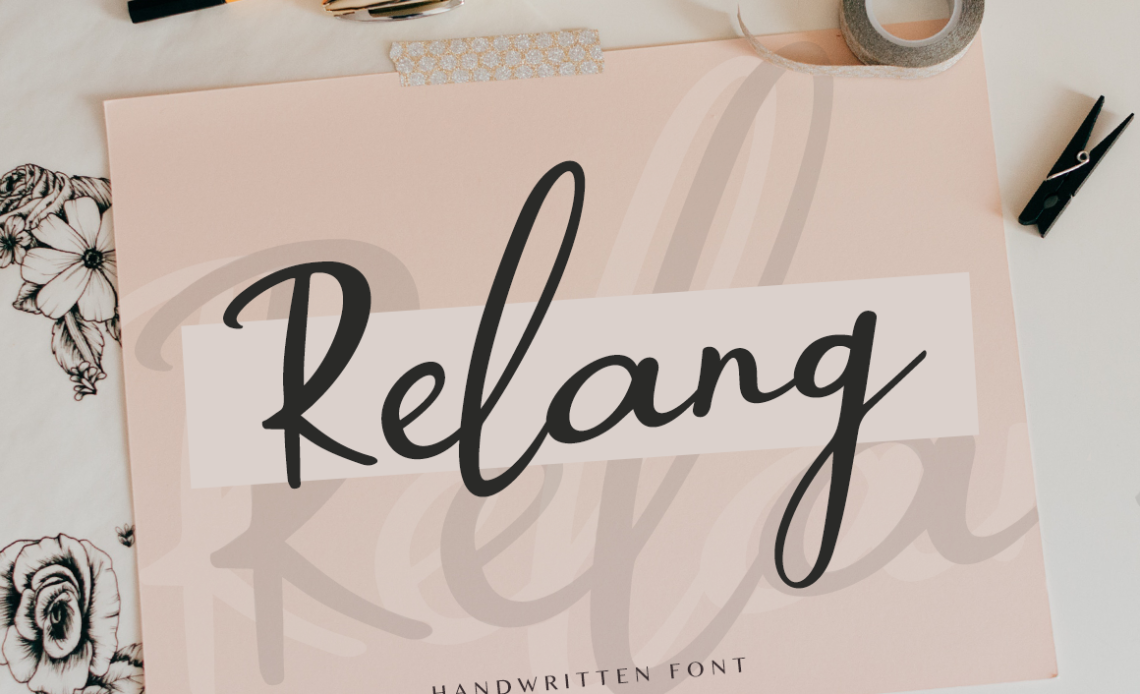
Step into the realm of visual artistry with Relang, the captivating script font family that ignites creativity and transforms your visual projects into masterpieces. Crafted meticulously by the visionary Pasha Larin, Relang embodies the essence of modern calligraphy, exuding a unique charm that sets it apart from the ordinary.
With Relang, you embark on a journey through the world of swirling strokes, delicate flourishes, and mesmerizing letterforms that dance across the page, evoking emotions and captivating imaginations. Its flowing lines possess an organic elegance, reminiscent of handwritten notes penned with care, adding a touch of intimacy and personal expression to your designs.
Relang's versatility knows no bounds, seamlessly adapting to a myriad of creative endeavors, from branding and packaging to invitations, social media designs, and even fashion apparel. Whether you're seeking to bestow a luxurious touch upon your business logo, craft enchanting wedding invitations that leave a lasting impression, or create social media posts that captivate audiences, Relang rises to the occasion effortlessly.
Embrace Relang's allure and unlock new horizons of creative expression. Unleash the power of this script font to elevate your designs to unprecedented heights, leaving an indelible mark on the hearts and minds of your audience. Relang is not just a font; it's an experience, an invitation to embark on a creative odyssey where boundless possibilities await.